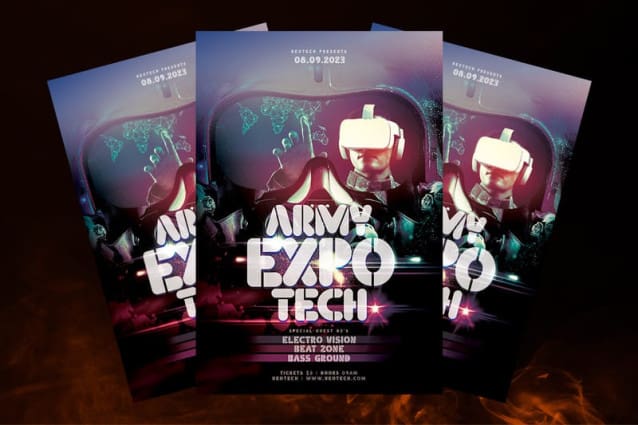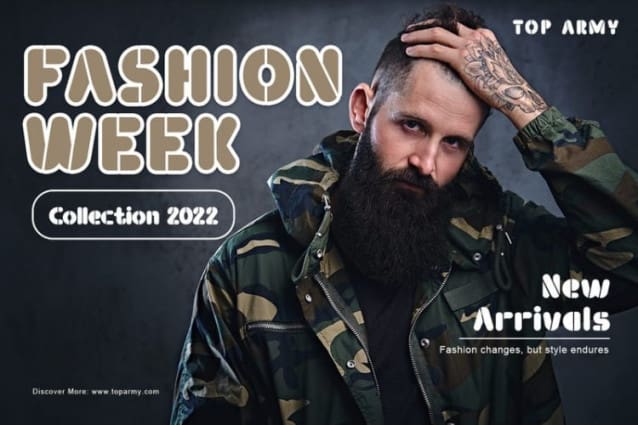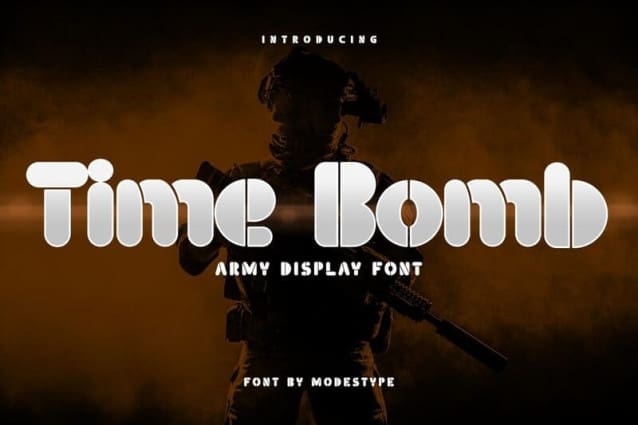
Time Bomb Font
Time Bomb Font – the perfect Gaming Font for any project that needs a military touch. This bold and modern Army Display Font features a rounded stencil shape that’s both versatile and eye-catching. Whether you’re creating a logo for your eSports team, designing a movie title, or just looking to add some edge to your project, it is the ideal choice. Its sans-serif style makes it easy to read and perfect for use on Instagram, YouTube, and other social media platforms. And with its sleek and modern design, it is sure to impress gamers, designers, and military enthusiasts alike. Try Time Bomb today and see why it’s quickly becoming a go-to font for anyone looking for a bold and versatile display font.